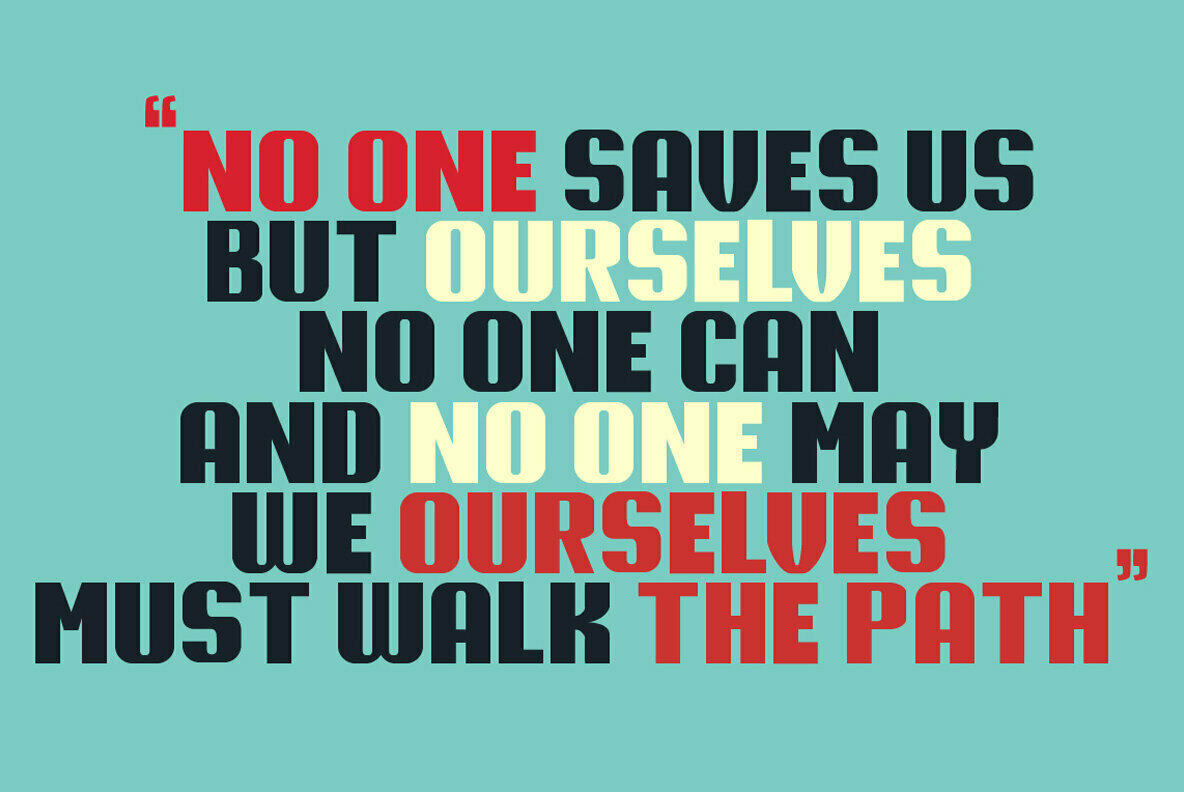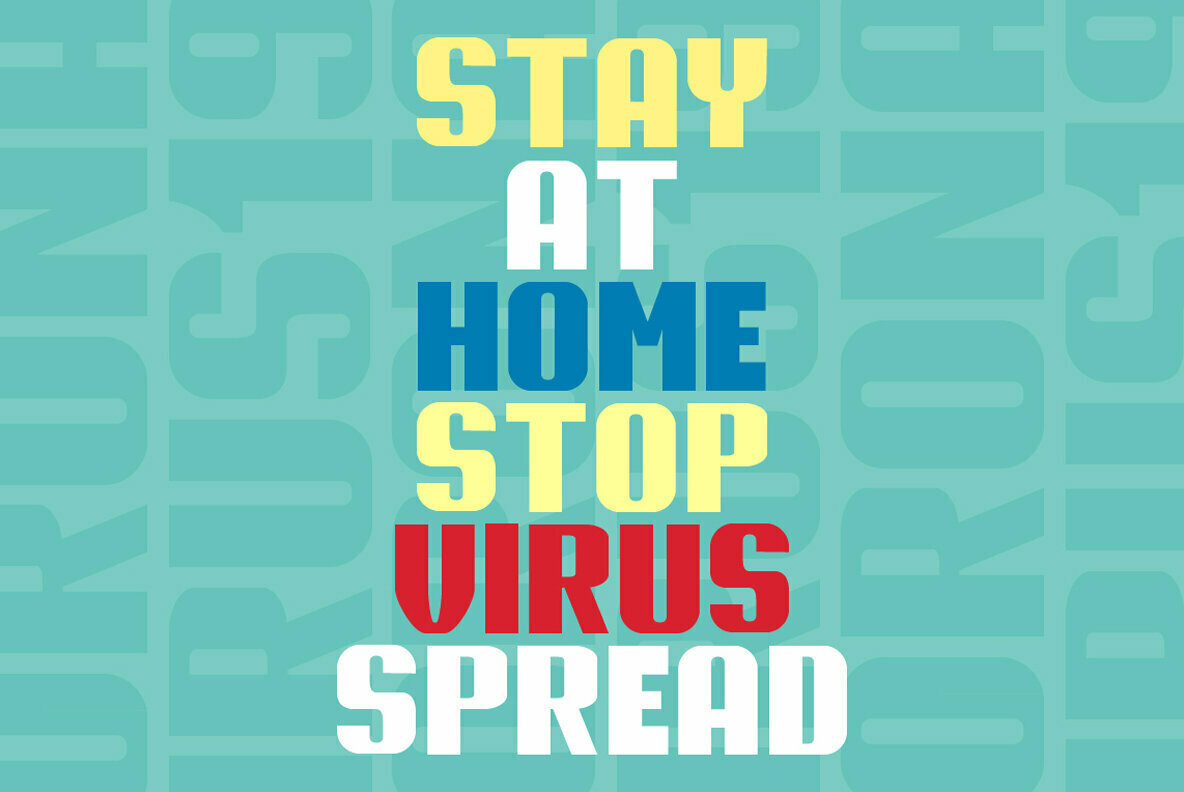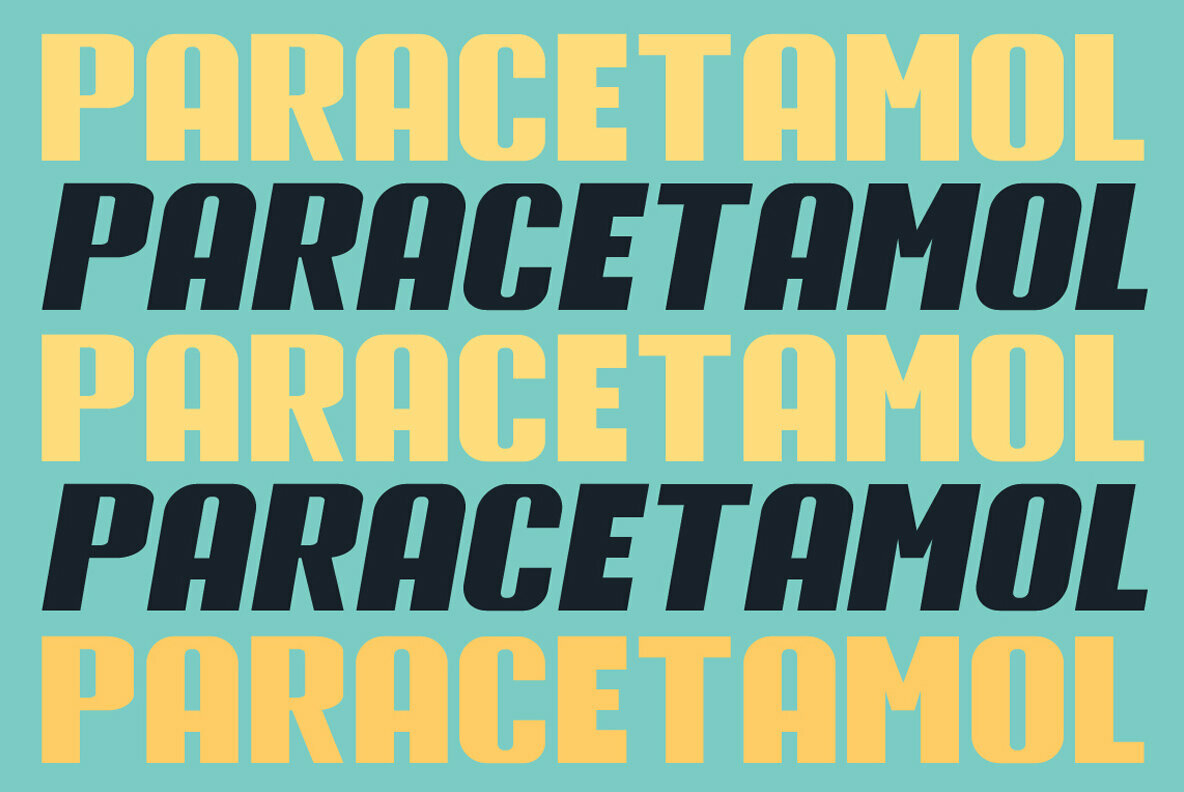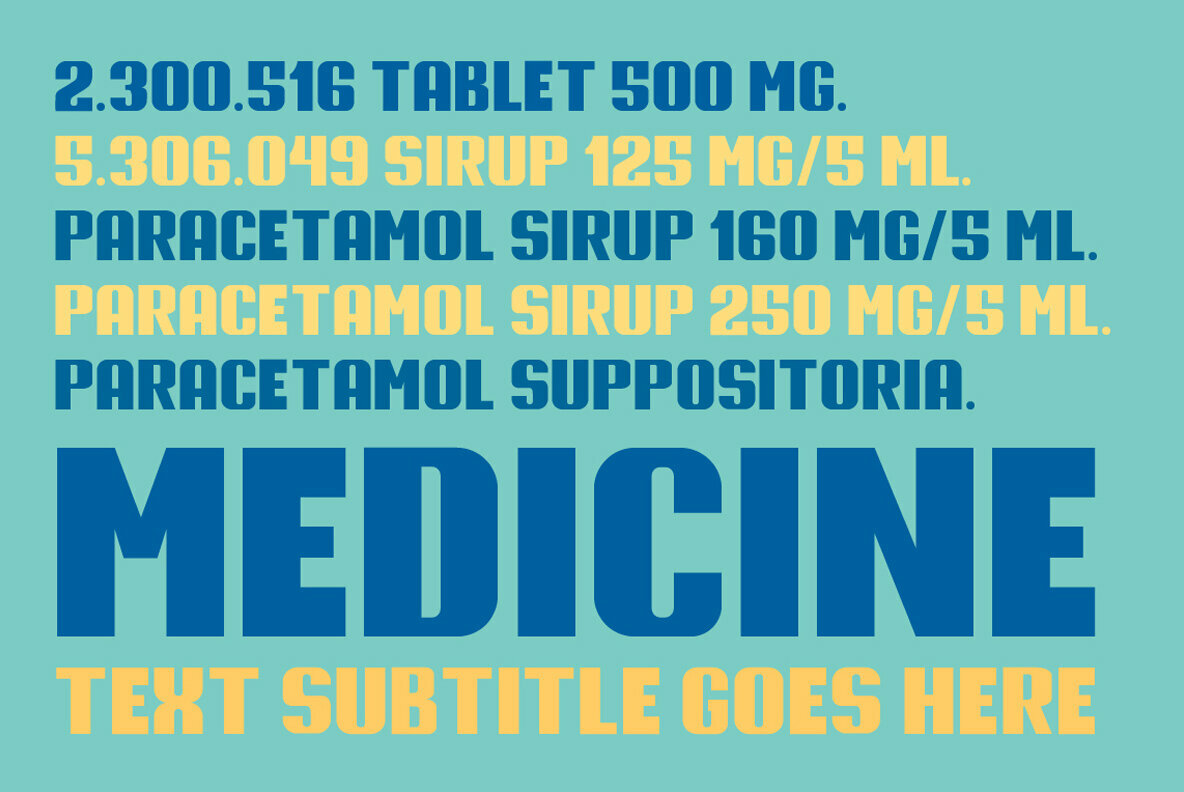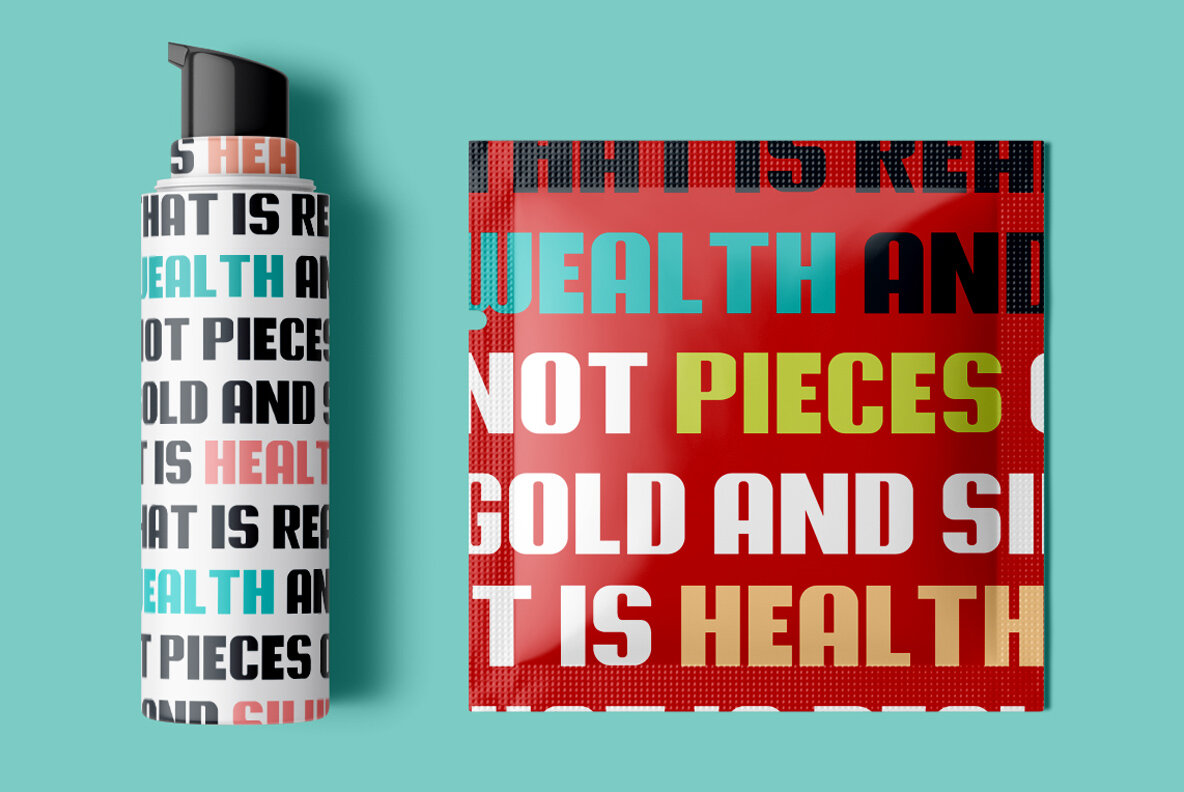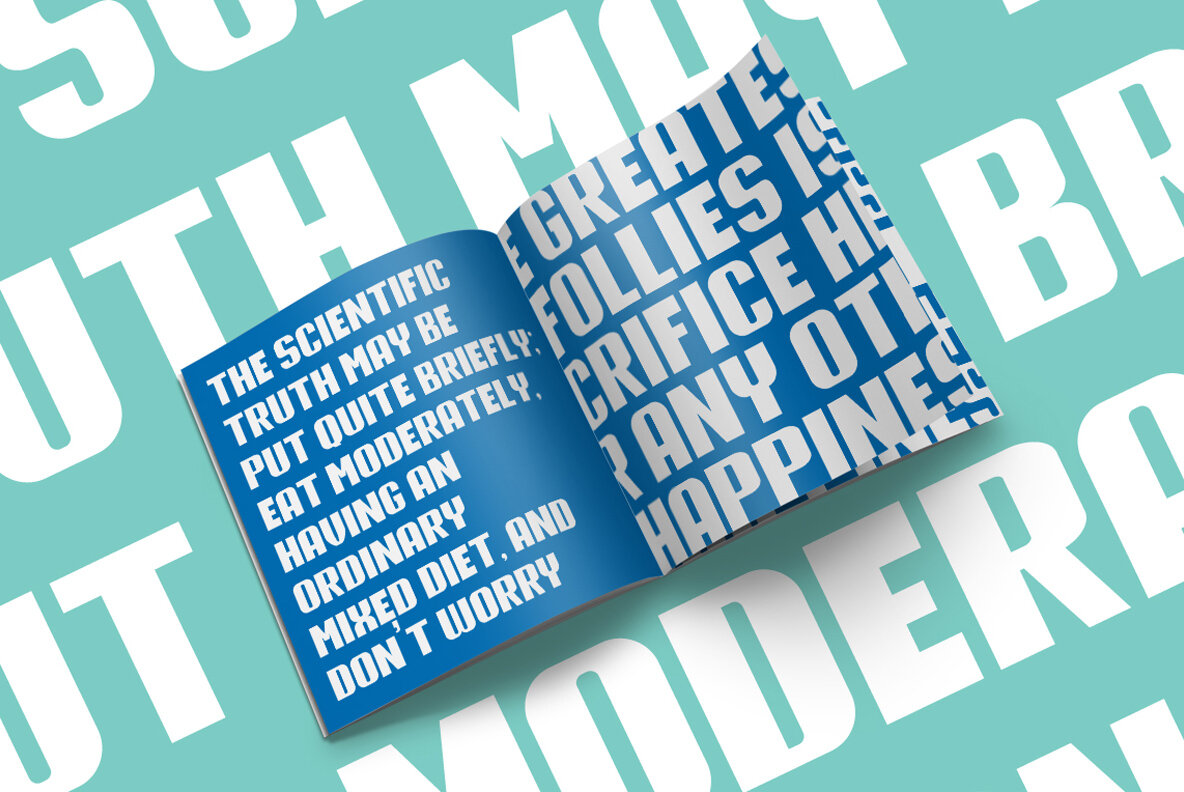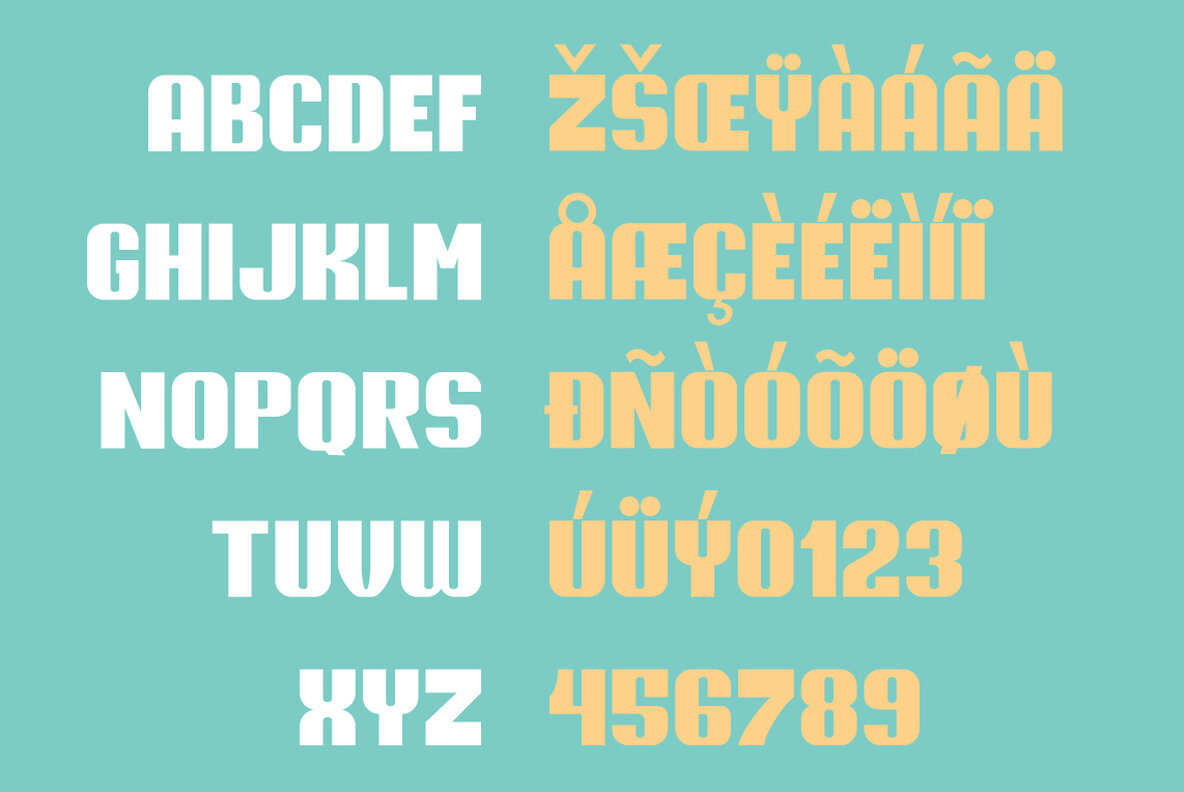
Browsa Font
Browsa by Ferry Hadriyan is a dynamic display font that effortlessly enhances a wide range of design projects. Its versatility makes it perfect for creating impactful logotypes, sophisticated wedding invitations, stylish apparel, and more. Whether it's for logos, badges, or stickers, Browsa offers a unique touch to any design undertaking.Browsa Display Font: Versatility Meets Elegance